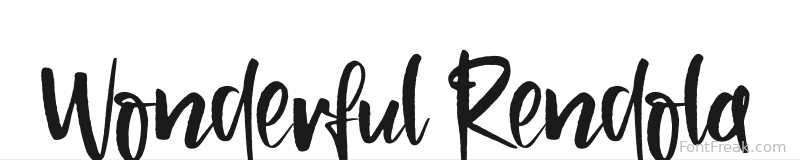
Wonderful Rendola
Wonderful Rendola, designed by Perspectype Studio in 2021, is a captivating script font that effortlessly blends elegance with a contemporary flair. This font showcases a unique handwritten style, characterized by its fluid strokes and playful curves. The varying stroke weight imbues it with a sense of dynamism, while the moderate contrast between thick and thin lines adds visual interest. The spacing is carefully crafted, ensuring legibility without sacrificing the font's artistic charm.
Ideal for a wide range of applications, Wonderful Rendola shines in contexts such as wedding invitations, where its romantic style enhances the overall aesthetic. It also works beautifully for greeting cards, making personal messages feel special and heartfelt. For small business owners, using this font in branding or promotional materials can create a warm, inviting atmosphere that attracts customers. Additionally, it is an excellent choice for social media graphics, where content creators can leverage its stylish appearance to stand out in a crowded digital landscape.
The target audience for Wonderful Rendola includes graphic designers seeking a versatile and expressive font, small business owners looking to elevate their brand identity, and content creators wanting to add a touch of personality to their projects.
What sets Wonderful Rendola apart is its ability to convey warmth and creativity while maintaining an air of sophistication. This font is not just a typeface; it is a statement piece that can transform any design into something truly remarkable. Whether you are working on a personal project or a professional endeavor, the Wonderful Rendola font free download offers a unique opportunity to enhance your work with its distinctive style.